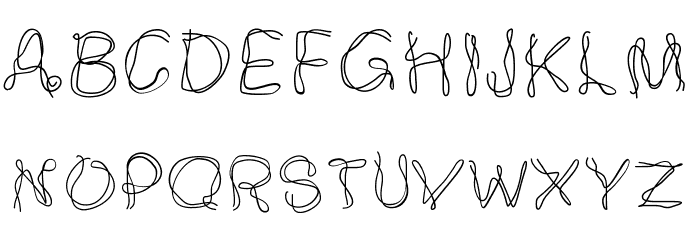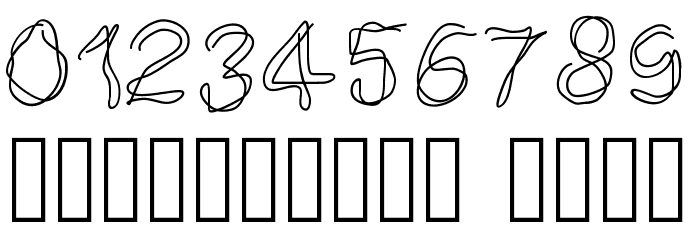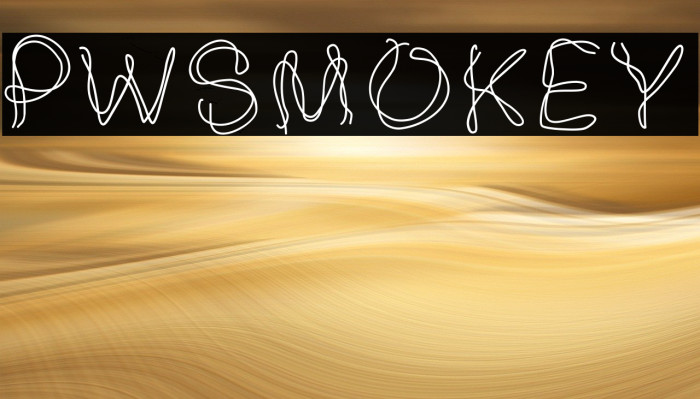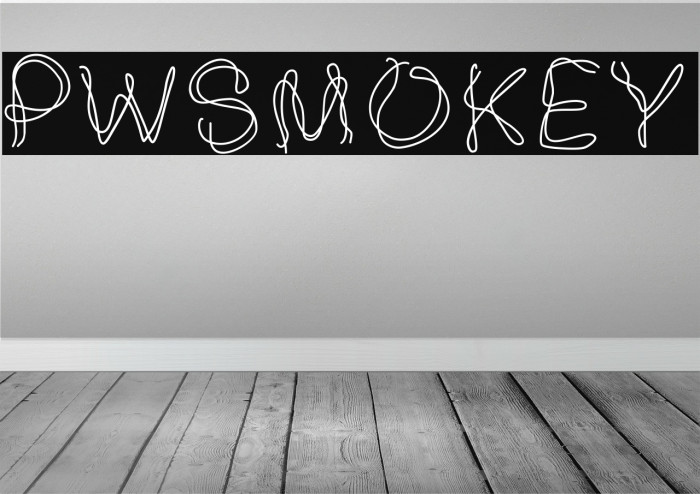
PWSmokey Font
This font features a whimsical and artistic design, characterized by its looping and swirling strokes that give each character a unique and playful appearance. The letters are crafted with a sense of fluidity and movement, resembling hand-drawn calligraphy with a modern twist. The uppercase and lowercase letters maintain a consistent style, with each character exhibiting a distinct personality through its intricate curves and lines. The numbers follow the same artistic theme, ensuring a cohesive look across all characters. This font's decorative nature makes it stand out, offering a creative and expressive option for various design projects.
A whimsical, artistic font with looping, swirling strokes and a playful, hand-drawn appearance.
- Proposed Projects: Ideal for creative projects such as invitations, greeting cards, posters, and artistic branding.
- Use Case: Logos, Headlines, Artistic projects